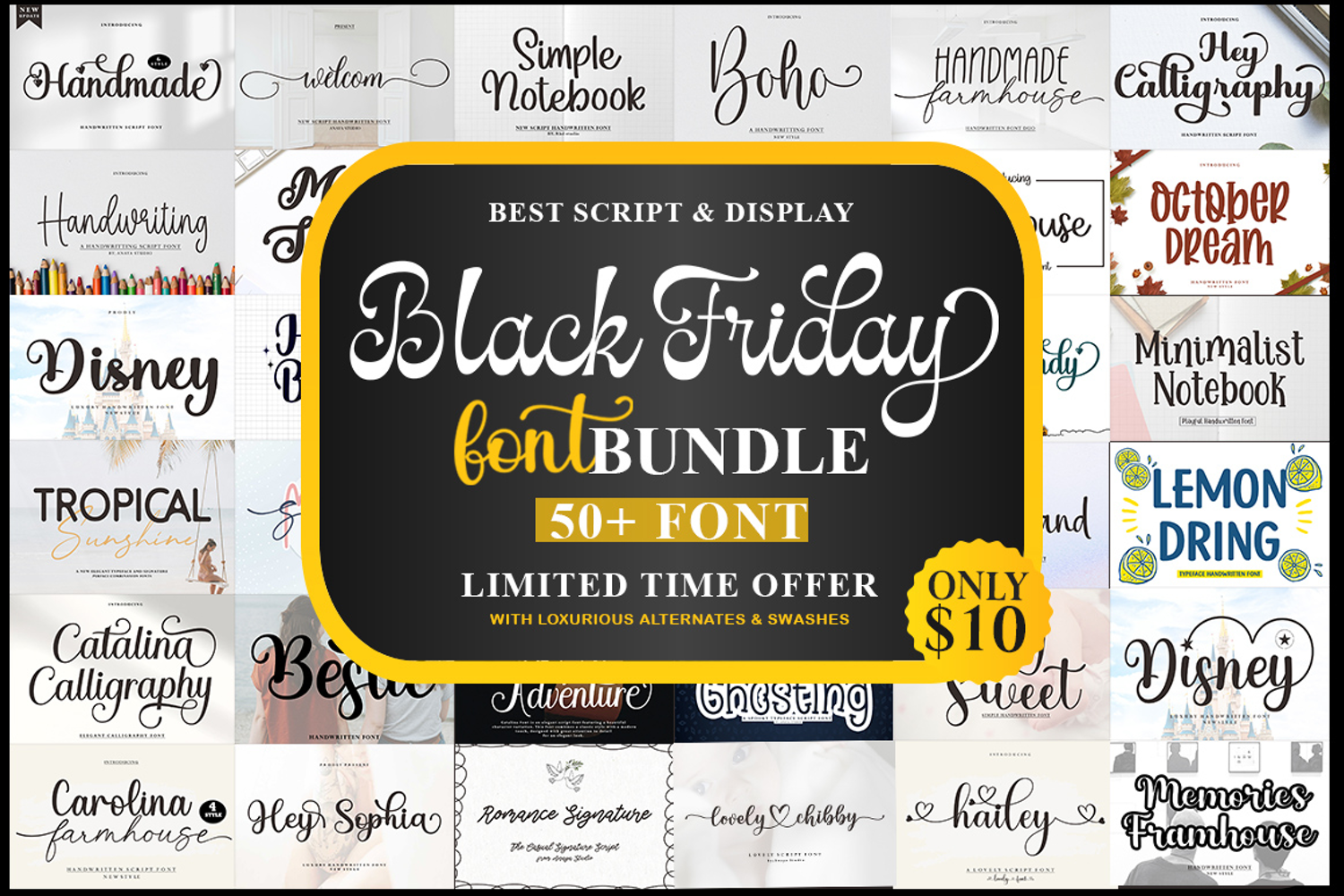
Black Friday Font Bundle
Black Friday Font Bundle – 50+ Premium Fonts
Elevate your design projects with this exclusive Black Friday Font Bundle, featuring 50+ high-quality script and display fonts. Perfect for branding, invitations, logos, posters, social media, and more – this collection offers a versatile mix of elegant calligraphy, modern handwritten styles, playful displays, and bold typefaces.
Each font comes with luxurious alternates and swashes, giving you endless creative possibilities to make your designs stand out.